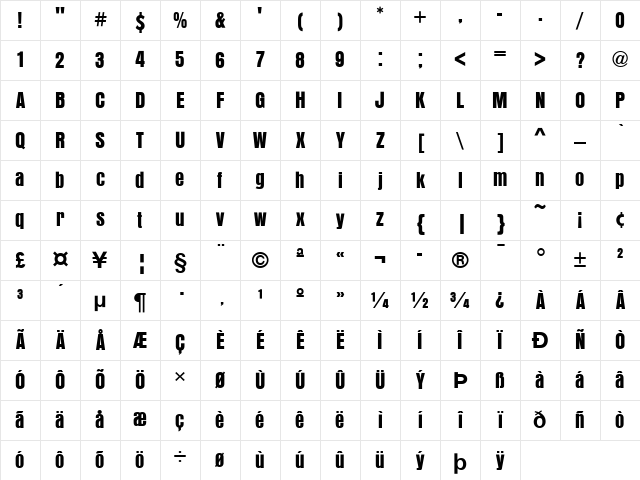
Anzeigen Grotesk T Regular
Design Context for Anzeigen Grotesk T
Anzeigen Grotesk T takes a clean, functional approach - its unadorned letterforms prioritise legibility and work reliably across screen and print environments.
Font Pairing: Works well alongside a characterful serif or display font that can carry the expressive load while Anzeigen Grotesk T handles the functional copy.
Pro Tip: Use Anzeigen Grotesk T for UI labels, navigation, and short-form body copy where clean legibility is the priority.